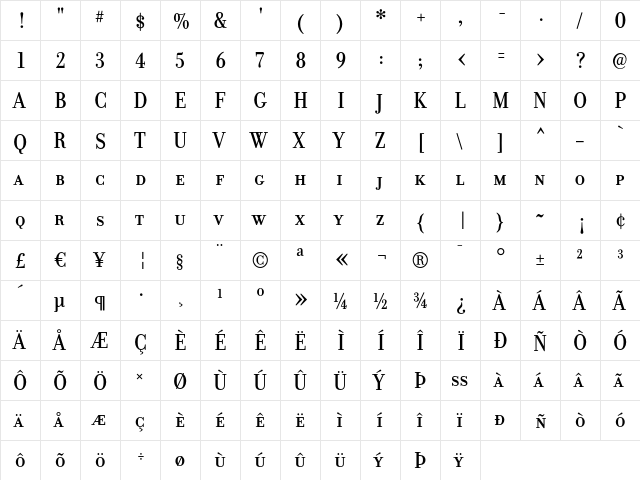
DonatoraMediumSC Regular
Design Context for DonatoraMediumSC Typeface
DonatoraMediumSC offers clean, dependable letterforms without strong stylistic allegiance, making it a practical choice for designers who need flexibility.